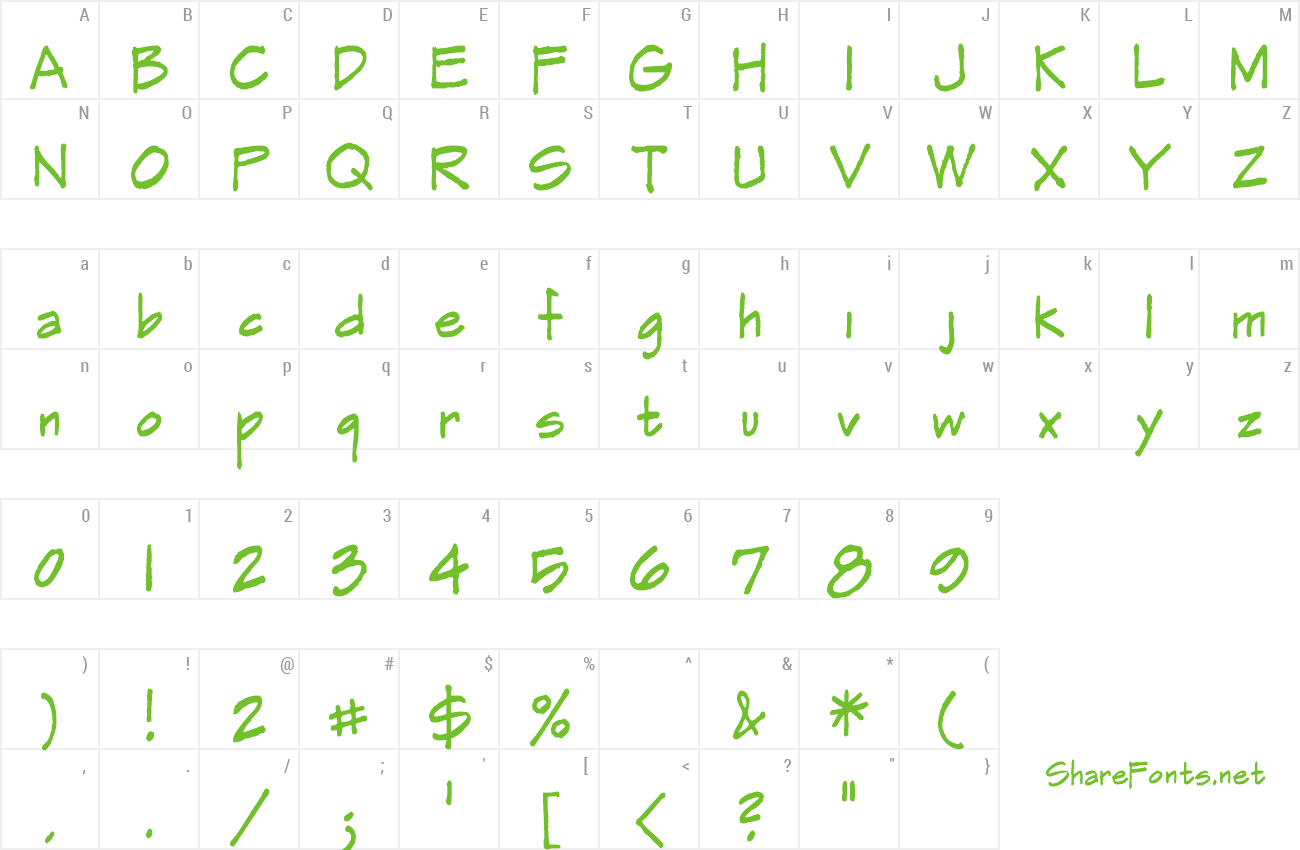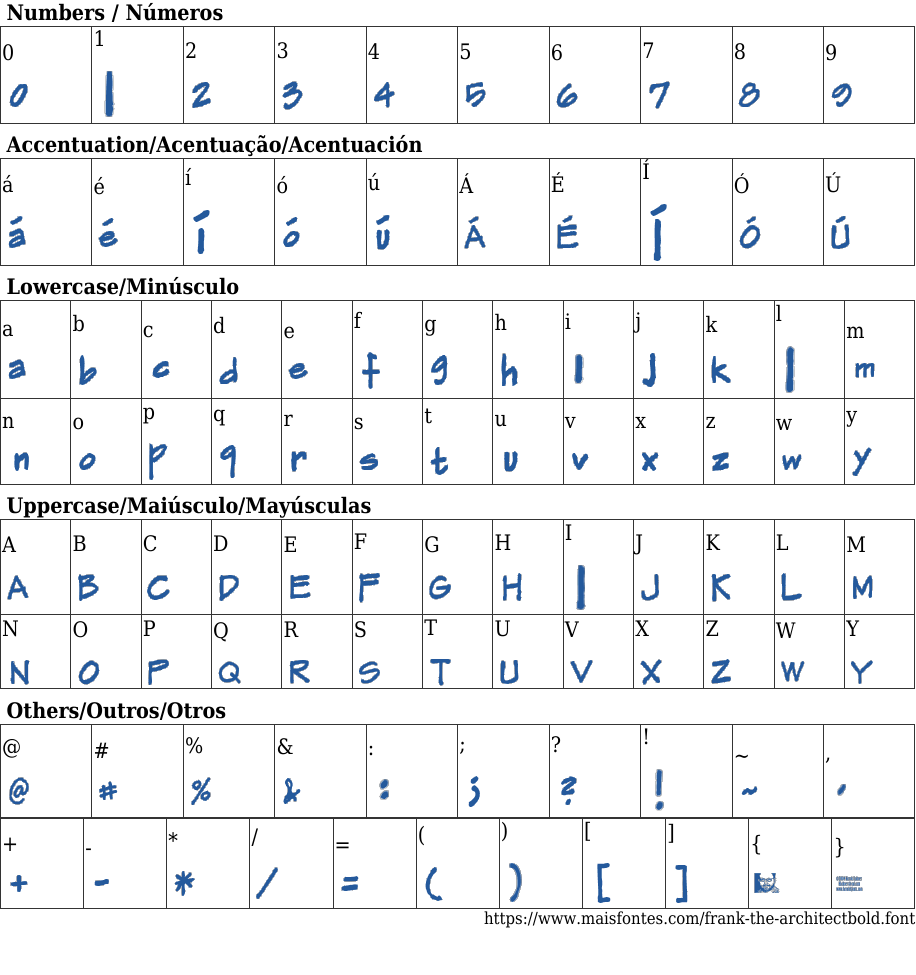
Frank The Architect Font - Frank the architect bold is the perfect font for all your fun designs. Download free fonts (ttf) for windows and apple, all fonts on this site are either freeware or shareware other categories also dingbats, styled, roman, italic See how to download frank the architect bold for free! The font is only for commercial purposes only and you must be purchased. The font frank the architect can't be downloaded from fontpark.com.
See how to download frank the architect bold for free! The font frank the architect can't be downloaded from fontpark.com. Frank the architect bold is the perfect font for all your fun designs. Download free fonts (ttf) for windows and apple, all fonts on this site are either freeware or shareware other categories also dingbats, styled, roman, italic The font is only for commercial purposes only and you must be purchased.
See how to download frank the architect bold for free! The font frank the architect can't be downloaded from fontpark.com. Download free fonts (ttf) for windows and apple, all fonts on this site are either freeware or shareware other categories also dingbats, styled, roman, italic Frank the architect bold is the perfect font for all your fun designs. The font is only for commercial purposes only and you must be purchased.
Download free fonts (ttf) for windows and apple, all fonts on this site are either freeware or shareware other categories also dingbats, styled, roman, italic Frank the architect bold is the perfect font for all your fun designs. The font frank the architect can't be downloaded from fontpark.com. The font is only for commercial purposes only and you must be.
Frank The Architect Font
The font is only for commercial purposes only and you must be purchased. The font frank the architect can't be downloaded from fontpark.com. See how to download frank the architect bold for free! Frank the architect bold is the perfect font for all your fun designs. Download free fonts (ttf) for windows and apple, all fonts on this site are.
Frank the architect bold is the perfect font for all your fun designs. See how to download frank the architect bold for free! The font is only for commercial purposes only and you must be purchased. Download free fonts (ttf) for windows and apple, all fonts on this site are either freeware or shareware other categories also dingbats, styled, roman,.
Frank The Architect Font
See how to download frank the architect bold for free! Download free fonts (ttf) for windows and apple, all fonts on this site are either freeware or shareware other categories also dingbats, styled, roman, italic The font frank the architect can't be downloaded from fontpark.com. Frank the architect bold is the perfect font for all your fun designs. The font.
The font is only for commercial purposes only and you must be purchased. Frank the architect bold is the perfect font for all your fun designs. The font frank the architect can't be downloaded from fontpark.com. See how to download frank the architect bold for free! Download free fonts (ttf) for windows and apple, all fonts on this site are.
Frank The Architect Font
Frank the architect bold is the perfect font for all your fun designs. The font is only for commercial purposes only and you must be purchased. Download free fonts (ttf) for windows and apple, all fonts on this site are either freeware or shareware other categories also dingbats, styled, roman, italic The font frank the architect can't be downloaded from.
Frank The Architect Font
Download free fonts (ttf) for windows and apple, all fonts on this site are either freeware or shareware other categories also dingbats, styled, roman, italic See how to download frank the architect bold for free! The font frank the architect can't be downloaded from fontpark.com. The font is only for commercial purposes only and you must be purchased. Frank the.
See how to download frank the architect bold for free! Frank the architect bold is the perfect font for all your fun designs. Download free fonts (ttf) for windows and apple, all fonts on this site are either freeware or shareware other categories also dingbats, styled, roman, italic The font frank the architect can't be downloaded from fontpark.com. The font.
Frank The Architect Font
The font is only for commercial purposes only and you must be purchased. Frank the architect bold is the perfect font for all your fun designs. Download free fonts (ttf) for windows and apple, all fonts on this site are either freeware or shareware other categories also dingbats, styled, roman, italic See how to download frank the architect bold for.
Frank the architect bold is the perfect font for all your fun designs. The font frank the architect can't be downloaded from fontpark.com. See how to download frank the architect bold for free! The font is only for commercial purposes only and you must be purchased. Download free fonts (ttf) for windows and apple, all fonts on this site are.
The font is only for commercial purposes only and you must be purchased. Download free fonts (ttf) for windows and apple, all fonts on this site are either freeware or shareware other categories also dingbats, styled, roman, italic The font frank the architect can't be downloaded from fontpark.com. Frank the architect bold is the perfect font for all your fun designs.